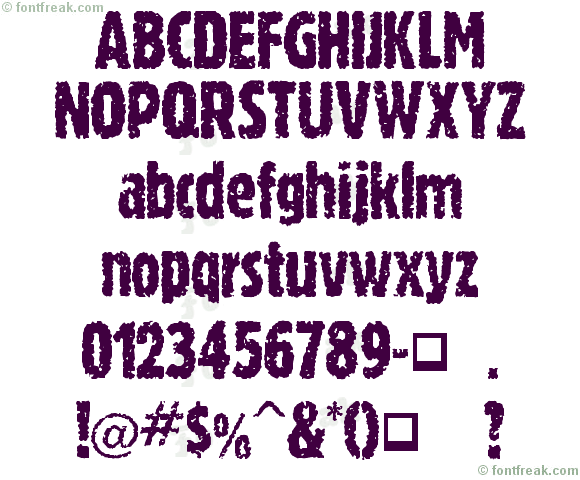
Romeo
The Romeo font by Catsu!t is a captivating display typeface that exudes a unique charm, making it a perfect choice for various creative applications. This font features a bold, textured design that adds a rustic yet playful feel to any project. The stroke weight is deliberately uneven, which contributes to its hand-crafted appearance, while the contrast between thick and thin lines enhances its visual interest. The letters are spaced generously, allowing for easy readability while maintaining a distinctive style that captures attention.
Romeo is particularly well-suited for projects such as wedding invitations, where its whimsical character can evoke a sense of joy and celebration. It also shines in the context of movie posters, effortlessly conveying an adventurous spirit that draws viewers in. Restaurant menus can benefit from Romeo’s engaging aesthetic, making dishes appear more enticing and memorable. Additionally, this font is ideal for promotional materials targeting young audiences, as it resonates with a fresh, energetic vibe.
The target audience for Romeo includes graphic designers looking to elevate their projects with an eye-catching typeface, small business owners wanting to create a memorable brand identity, and content creators aiming to enhance their visual storytelling. With its freeware license, the Romeo font is accessible to anyone looking to incorporate a distinctive style into their work without any financial constraints.
What truly sets the Romeo font apart is its ability to blend playfulness with a sense of authenticity, making it versatile across various design contexts. The combination of its unique visual characteristics and the ease of access through a Romeo font free download allows creatives to experiment and innovate in their designs, ensuring that their projects stand out in a crowded marketplace.